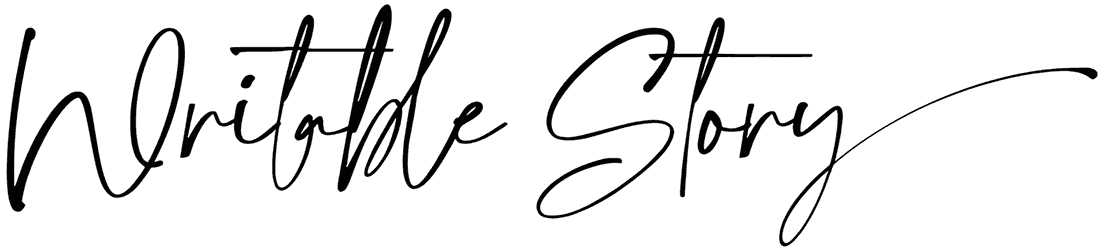
Writable Story Font
If beautiful writing for you means the handwriting of a human being with a very personal touch, Writable Story can do the trick nicely. This signature font is designed with the inspiration of hand movements, so it challenges readability.
However, it is a good choice for designing greeting cards, party invitations, and business needs that require a human atmosphere. Of course, the lack of numbers may create some limitations, but creative designers can implement their ideas despite this lack.
Writable Story is a modern, handmade, aesthetic calligraphy font to fascinate your customers and increase your brandings. It is more than just a handwriting because each stroke expresses luxury and beauty. In addition to being visually aesthetic. Use the font for various designs, such as posters, banners, logos, book covers, headings, printed products, merchandise, social media, and more.What’s included :
• Ligatures
• Stylistic Sets
• Multilingual Supports